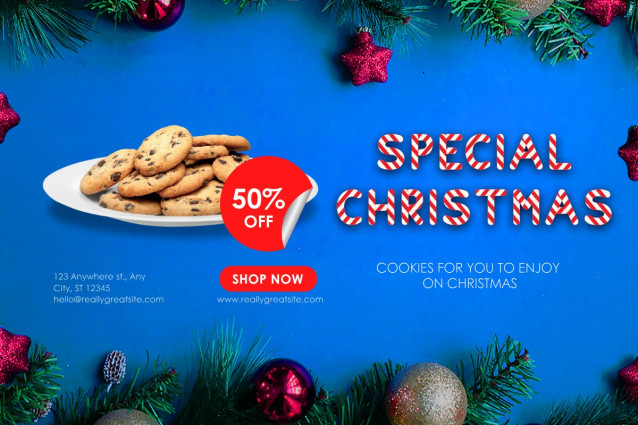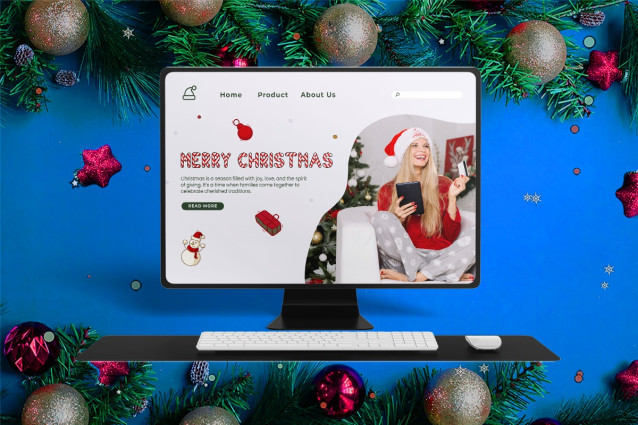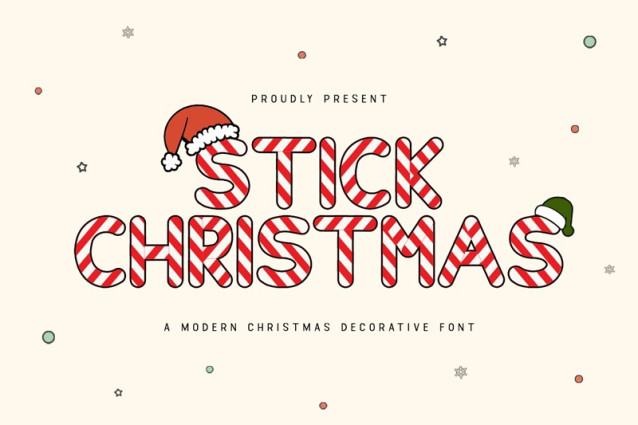
Stick Christmas Font
Stick Christmas Font A Modern Decorative Christmas Font is part of the display font. This font is one of the best Christmas font collections that you can see on the Kong Font website. This font has unique, beautiful, and fun characteristics, namely the shape of Christmas candy. In addition, we can see how Stick Christmas A Modern Decorative Christmas Font uses an illegible font. This font has some Christmas decorations on its shape. The description of the characteristics of Stick Christmas A Modern Decorative Christmas Font above shows how this font looks so unique and cute. These unique characteristics distinguish Stick Christmas A Modern Decorative Christmas Font from other fonts. This font can be used with small or large font sizes. The impression and characteristics of Stick Christmas A Modern Decorative Christmas Font are very good and can make it one of the best Christmas fonts that can be used for clothing item designs such as writing on hoodies, t-shirts, and hats. Snow Boom Font can be used for Christmas or cartoon themed logos. Like the previous font choices, Stick Christmas A Modern Decorative Christmas Font can be used digitally or in print. Our Display font collection is compatible to be used as Figma fonts, Canva fonts, Freepik fonts, and Adobe fonts. They also work as Windows fonts and Apple fonts. For your social media needs, you can use and install fonts in our Display font collection to be used as Instagram Fonts, Facebook Fonts, and Twitter Fonts.